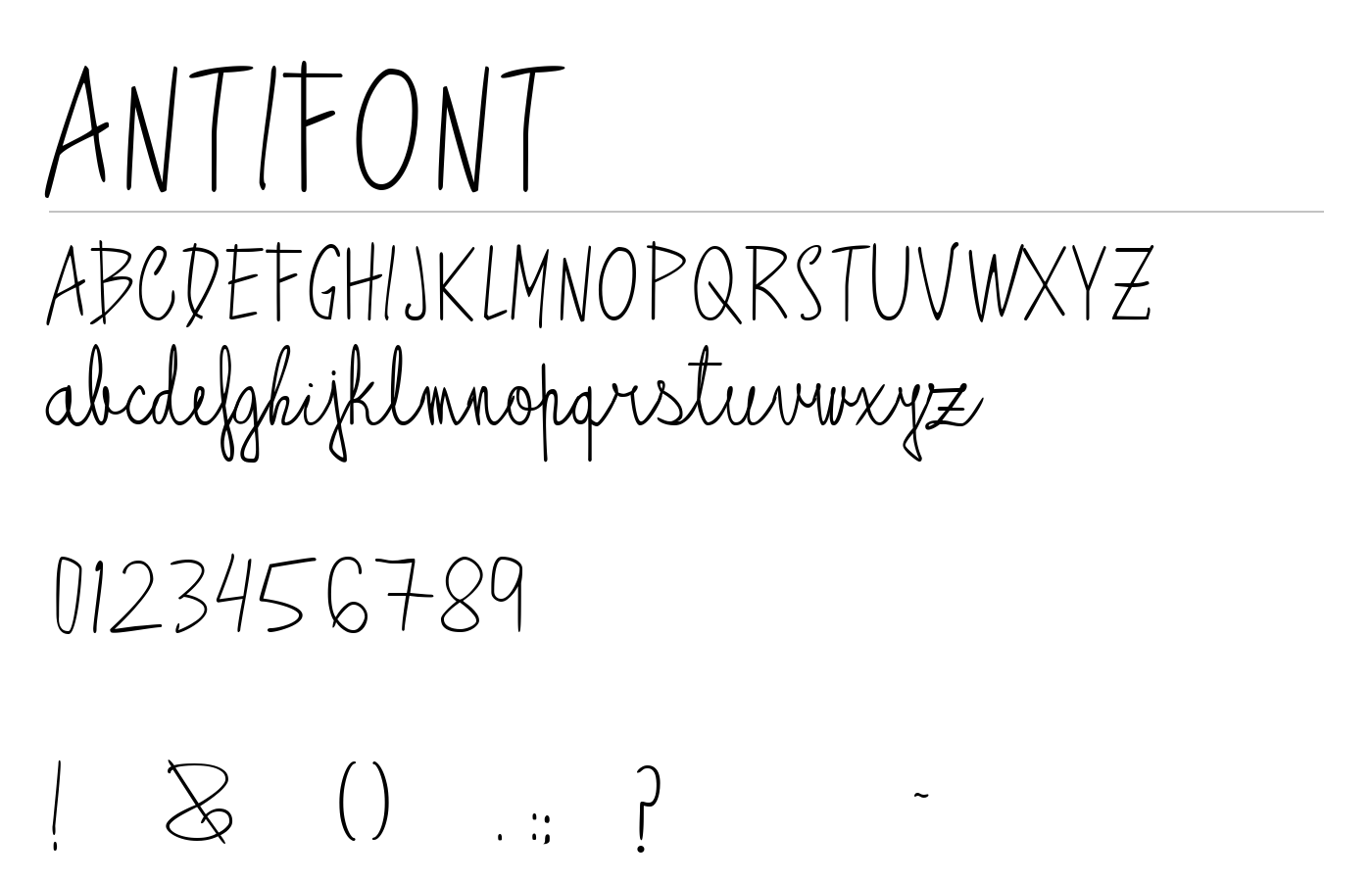
ANTIFONT is a playful, handwritten sans serif font with a tall, narrow structure and a light, airy feel. Its slender, irregular strokes and quirky letterforms give it a casual, informal personality, making it ideal for creative projects, personal branding, or anything that benefits from a friendly, approachable vibe. This font works best in headlines, invitations, and quirky designs where a unique, human touch is desired.
ANTIFONT
About ANTIFONT
| Font family | ANTIFONT |
| Designer | Pablo A. Sepulveda Poblete |